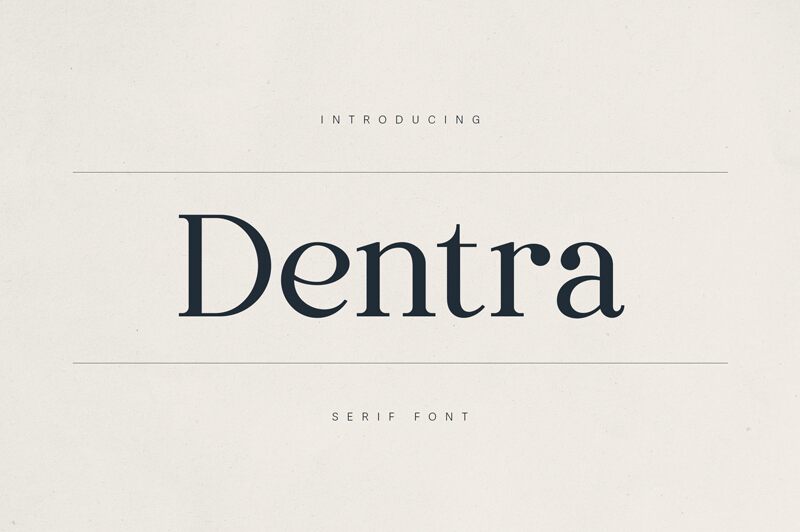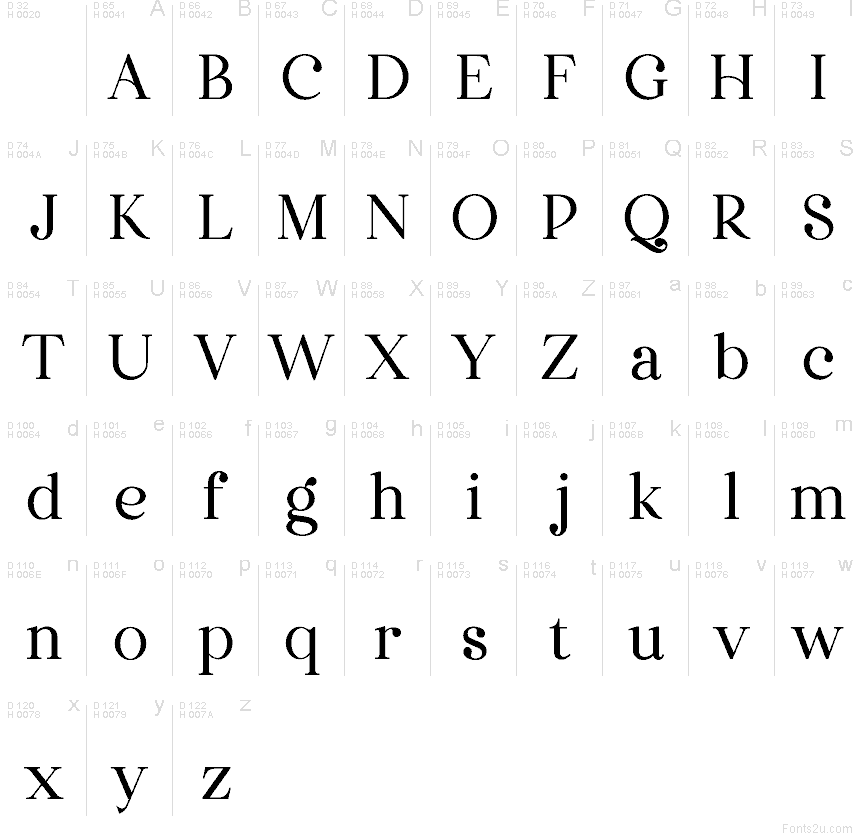
Dentra Regular
Dentra font by VPcreativeshop is a free elegant serif typeface with a polished, editorial feel. Its slender stems, crisp hairlines, and subtly flared serifs give every word a poised, ink-on-paper quality, like a refined magazine masthead. The proportions feel balanced and airy, so titles look confident without shouting, and longer phrases keep their grace even at medium sizes.
Using Dentra, you get a serif that shines on branding, book covers, magazine layouts, luxury packaging, wedding stationery, and homepage hero text. The rhythm of the letters is calm and even, which helps layouts feel composed and premium rather than fussy. This free font pairs beautifully with a clean geometric sans for body copy—set Dentra a bit larger with generous letterspacing to really show off its sculpted curves.